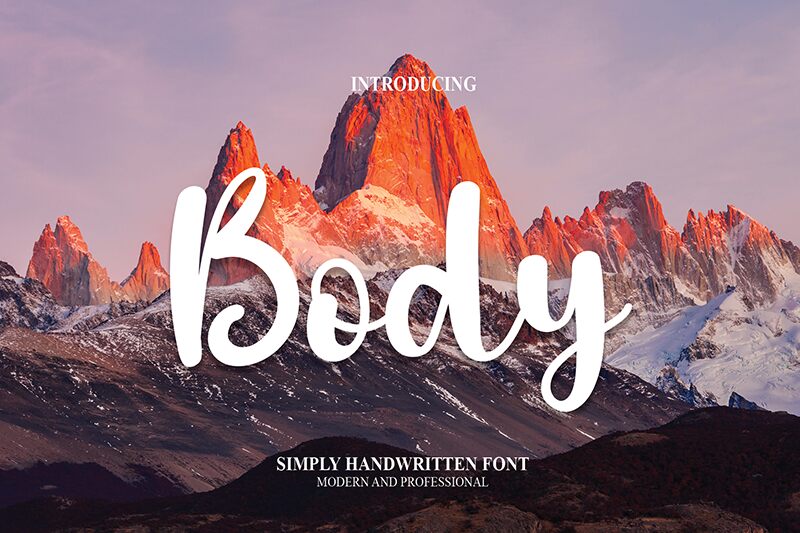
Body
Body, the bold and beautiful handwritten font designed by scratchones, is sure to captivate the attention of anyone who lays eyes on it. With its unique style and bold weight, this font is perfect for creating eye-catching designs that demand attention. Whether you're looking to create a stunning logo, a catchy headline or an impactful poster, Body is the perfect typeface for any project that requires a touch of creativity and flair. From fashion brands to food blogs, Body can be used in a variety of different projects to add personality and character to your designs. So why not give it a try today and see how it can take your work to the next level?
the latest style letters are perfect for wall displays, wedding invitations, social media post logos, advertisements, product packaging, product designs, labels, photography, watermarks, invitations, stationery, and any project that requires taste handwriting.